Kimera
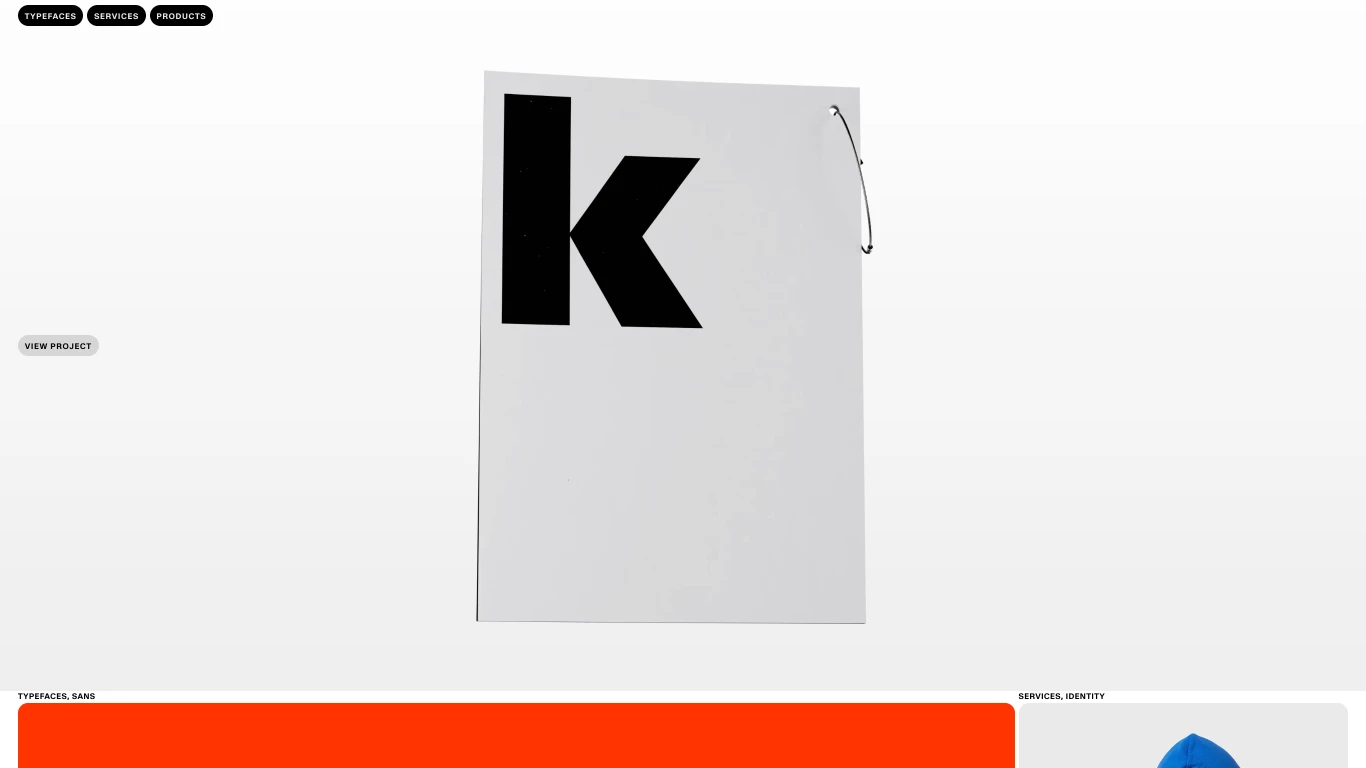
Kimera Corp is a multifaceted design studio and type foundry based in Europe, offering retail and bespoke typefaces for international clients. The studio provides art direction across culture, art, and lifestyle sectors, and operates a store featuring various products. Their philosophy centers on "Unity in Multiplicity." Notable typefaces by Kimera Corp include Melange Grotesk, Waldenburg, and Apparat—clean sans-serifs with contemporary edge. Clients include Souvenir Official, AFFXWRKS, Wastecare, and Transmoderna, among others.